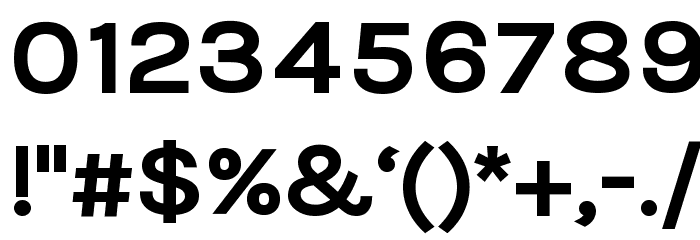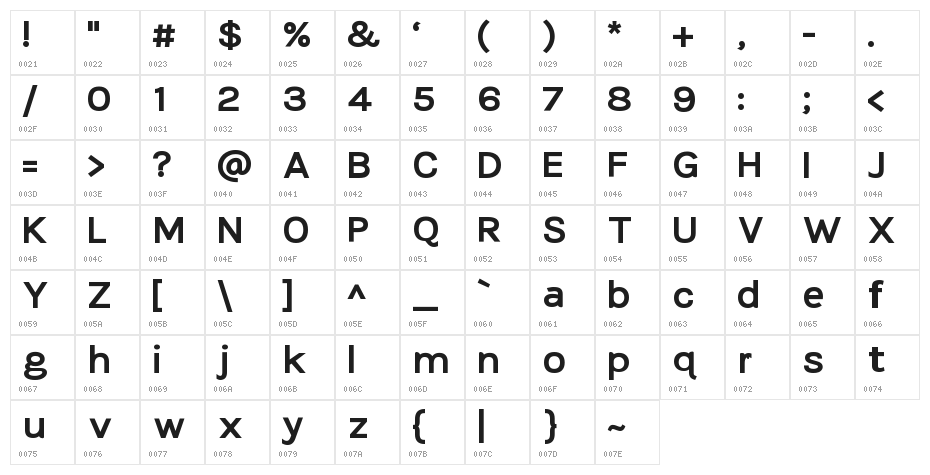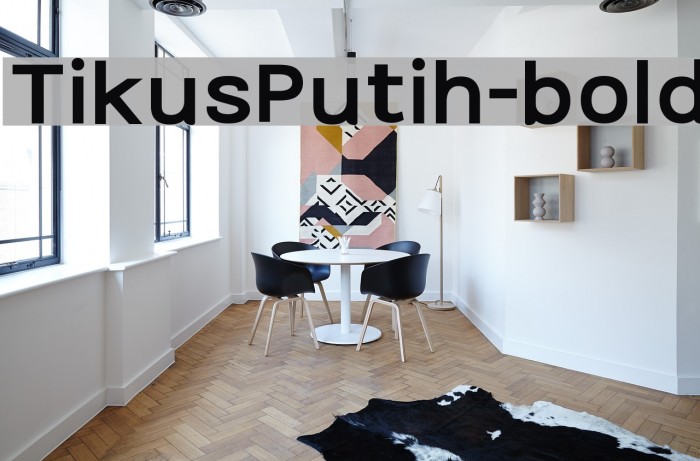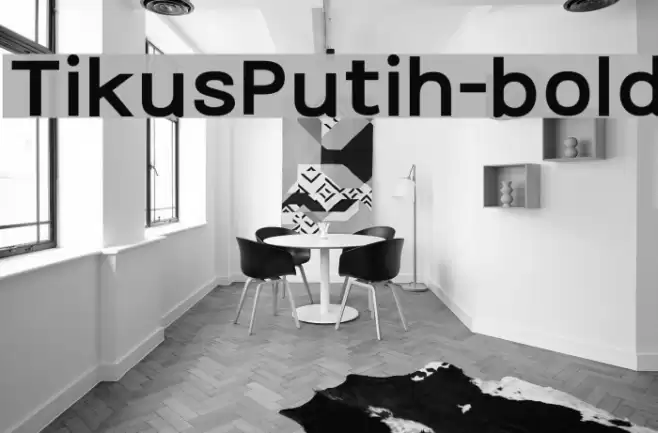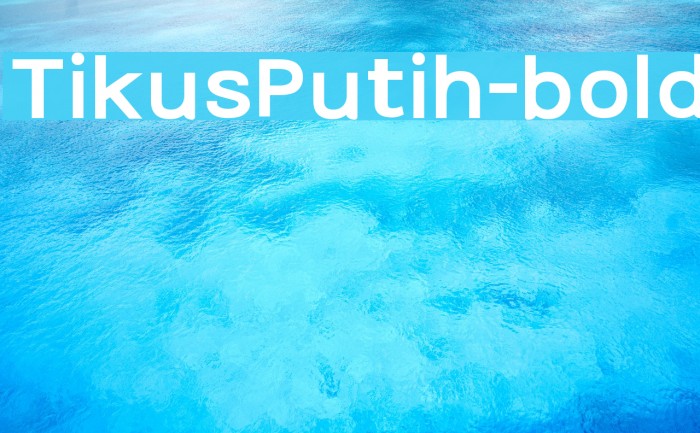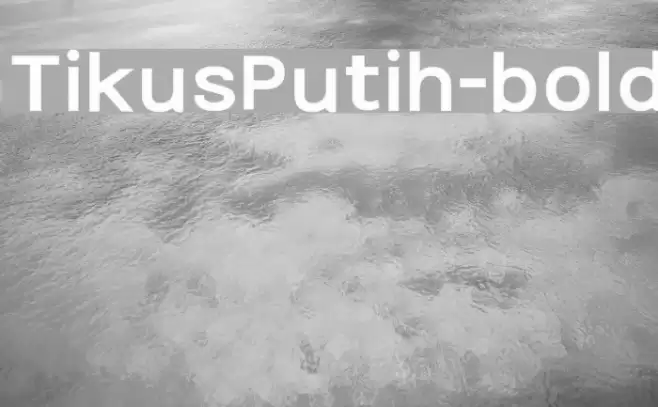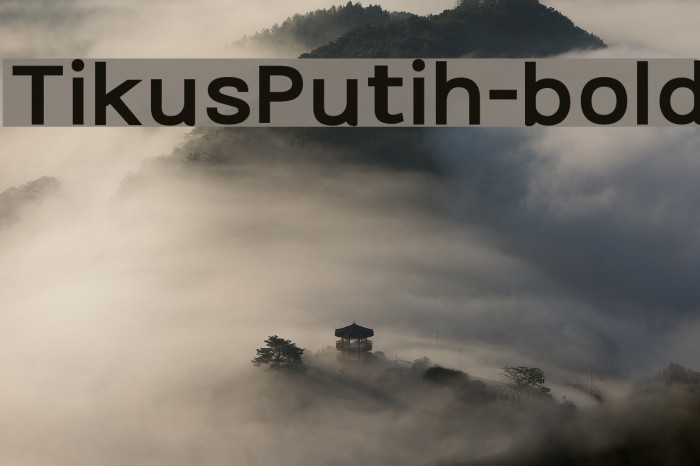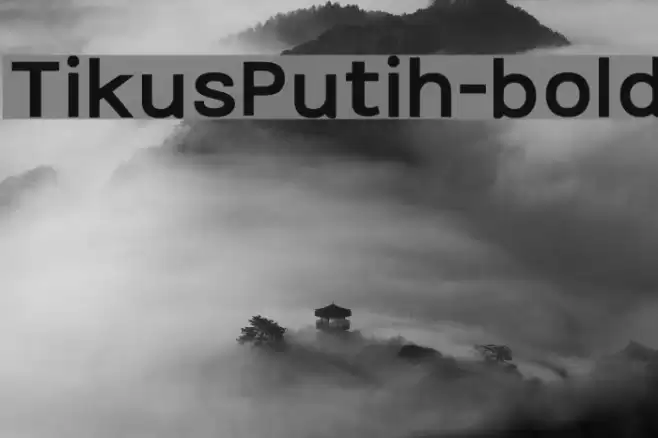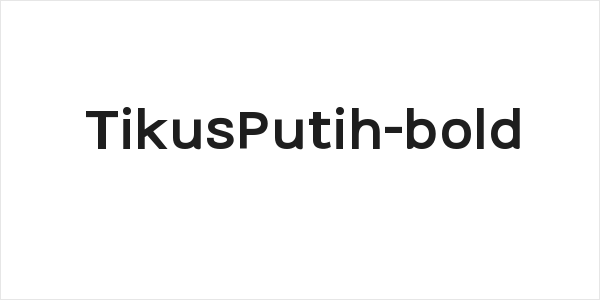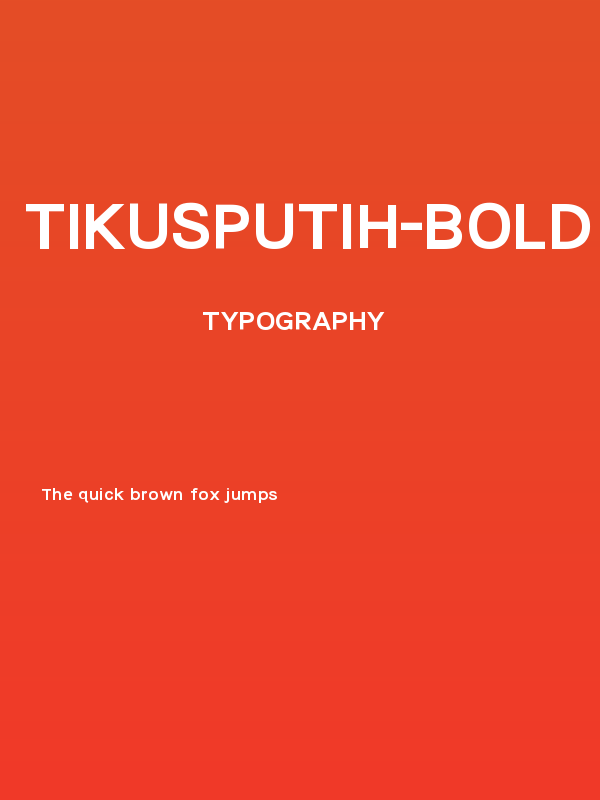
TikusPutih-bold Font
TikusPutih-bold Description
This font exhibits a bold and modern sans-serif style, characterized by clean lines and a uniform stroke width. The uppercase and lowercase letters are well-proportioned, offering a balanced and harmonious appearance. The numerals are clear and legible, making them suitable for a variety of applications. The special characters are distinct and maintain the overall aesthetic of the typeface. Its simplicity and clarity make it versatile for both digital and print media.
| Proposed Projects | Ideal for branding, advertising, headlines, and digital interfaces where clarity and impact are essential. |